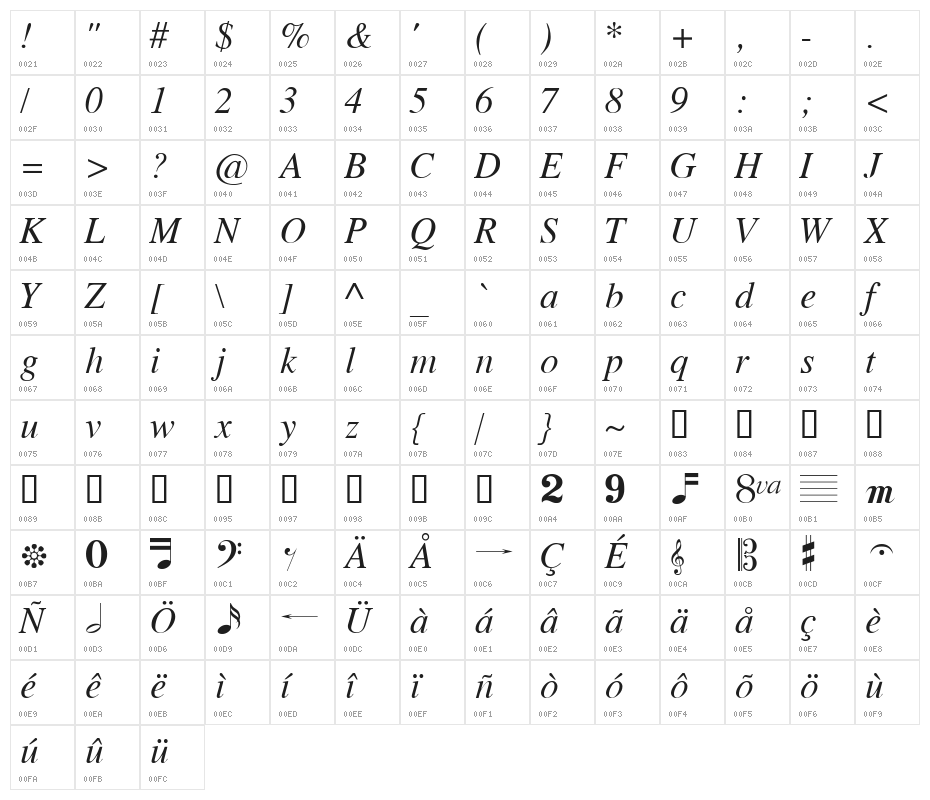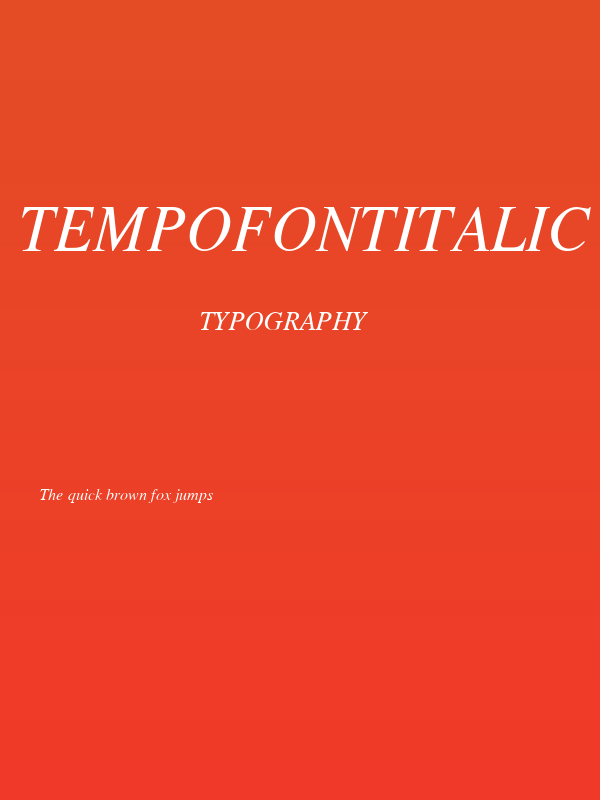
TempoFontItalic Font
TempoFontItalic Description
This font features an elegant italic style with a classic serif design. The characters are slightly slanted, giving a sense of motion and sophistication. The serifs are pronounced, adding a touch of formality and tradition. The uppercase letters are well-proportioned, while the lowercase letters maintain a smooth flow. Numbers are clear and distinct, making them easily readable. Special characters are designed with the same attention to detail, ensuring consistency throughout the typeface. This font is suitable for projects that require a refined and professional appearance.
| Proposed Projects | Ideal for formal invitations, editorial design, branding, and elegant packaging. |